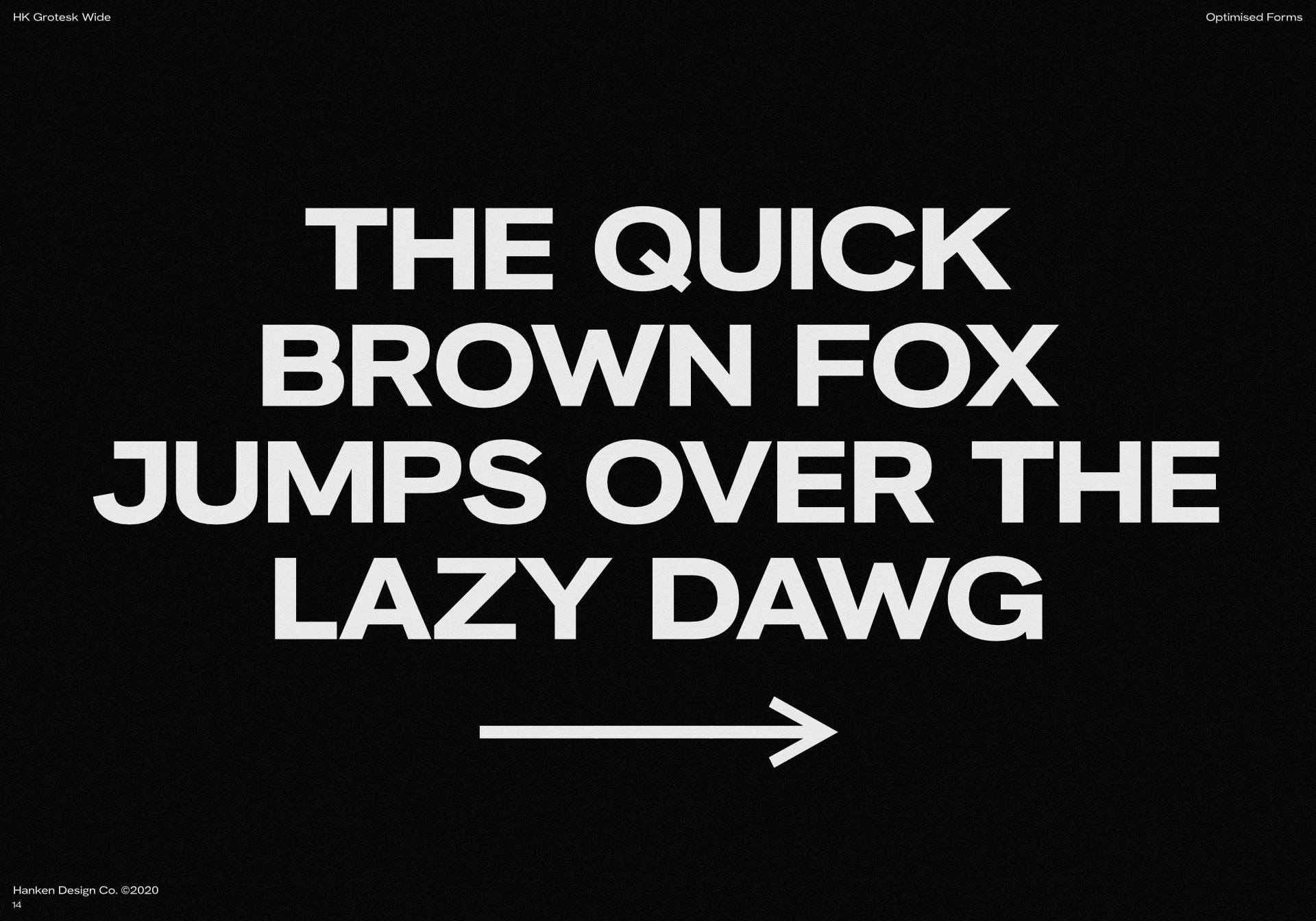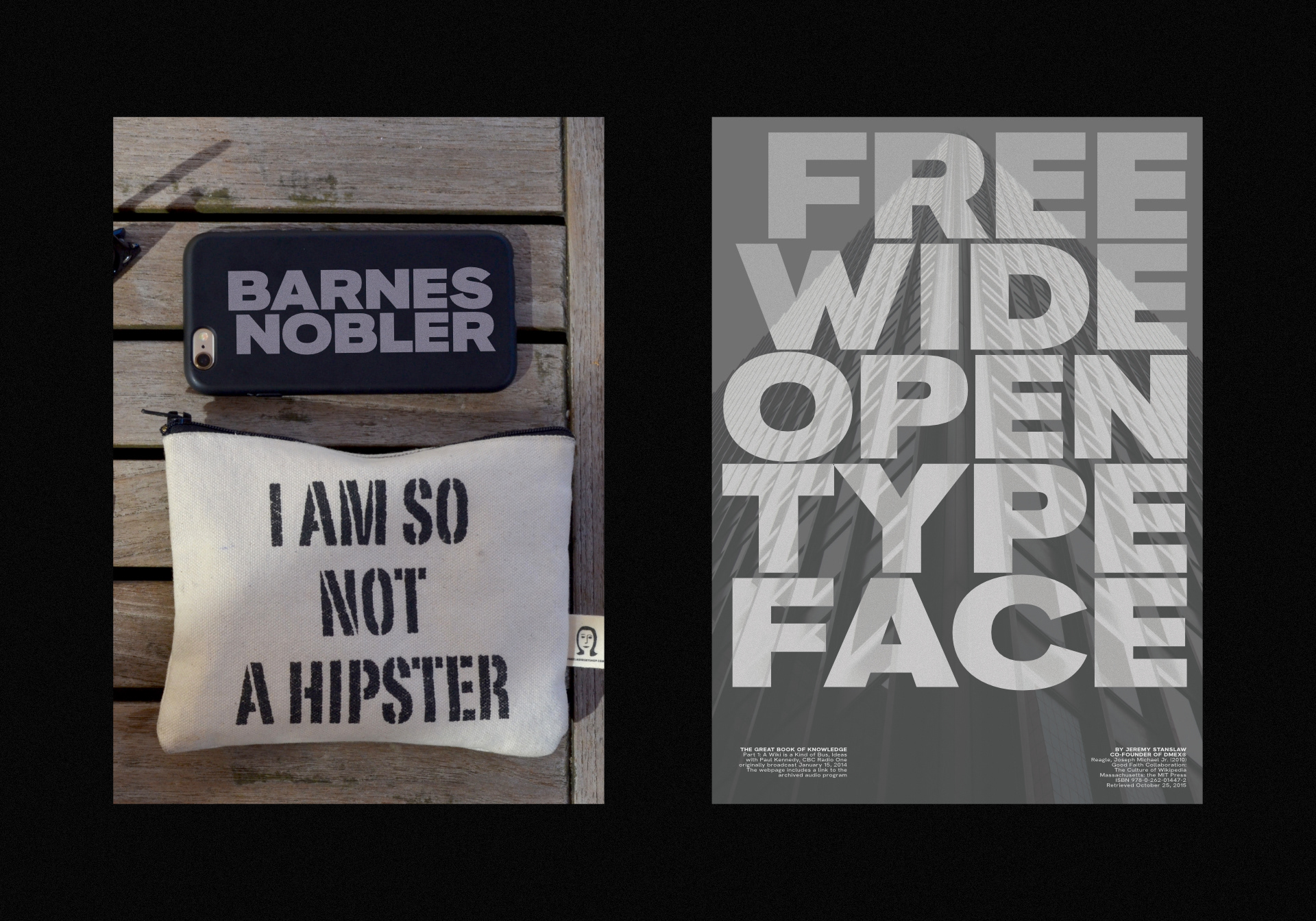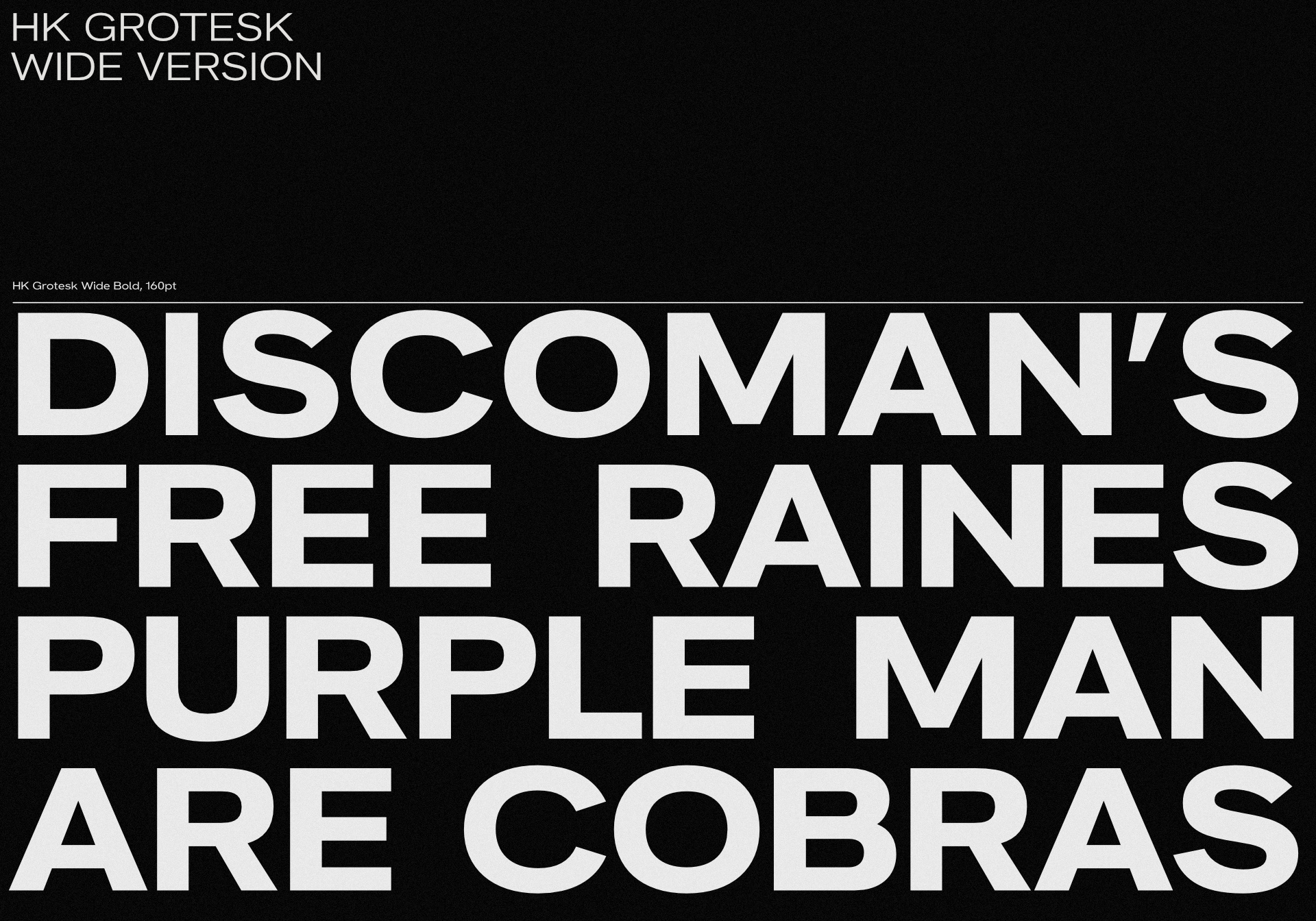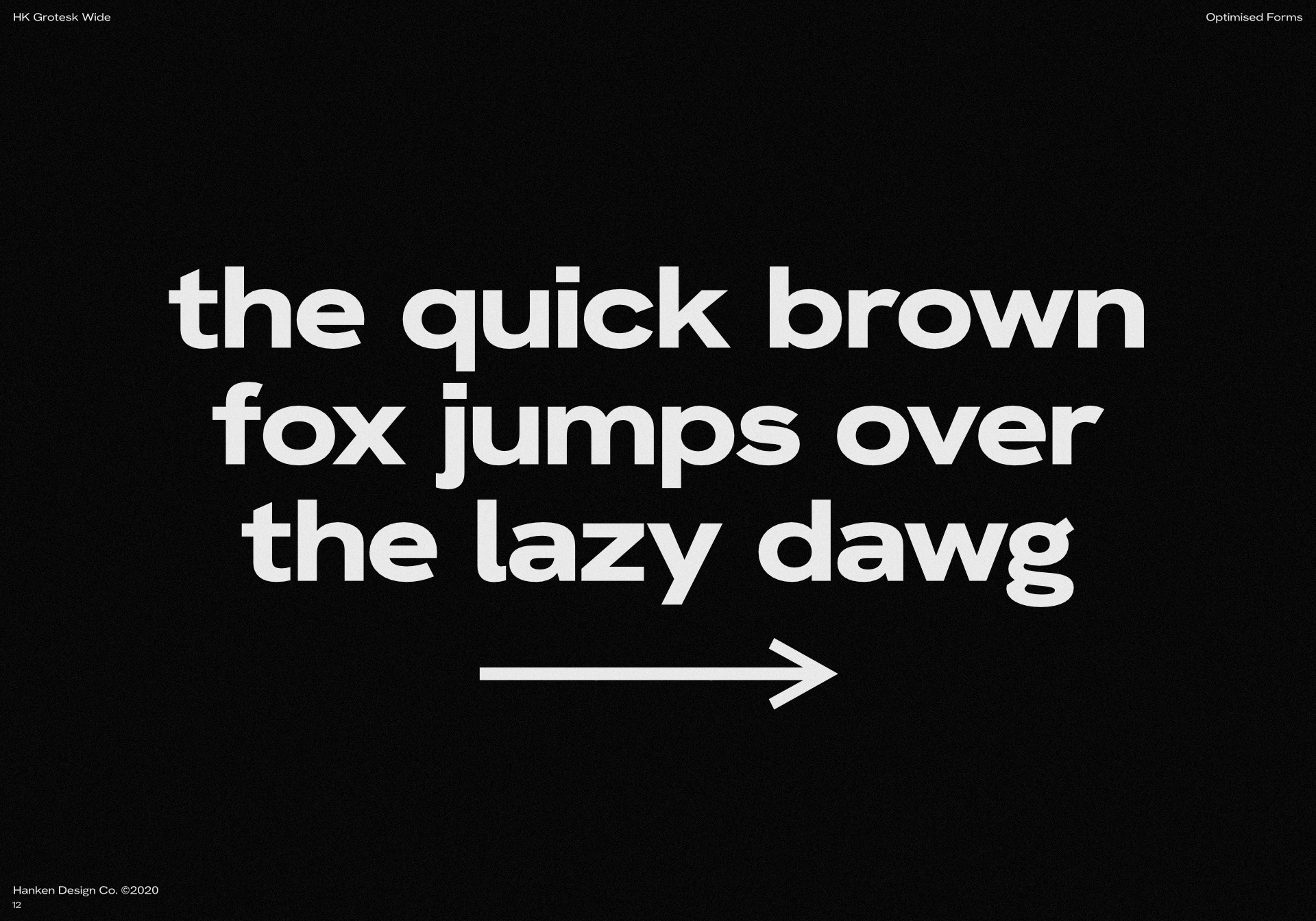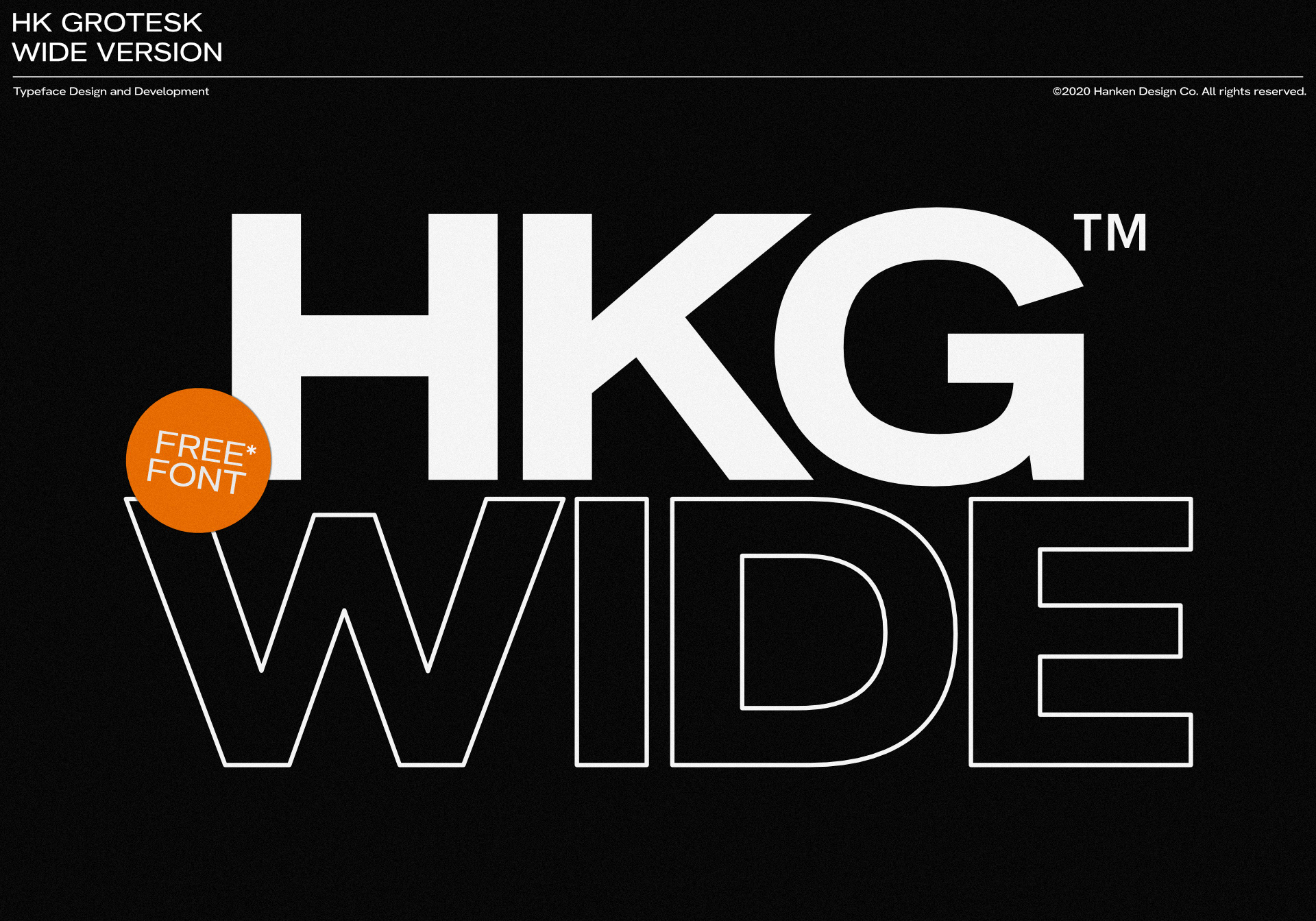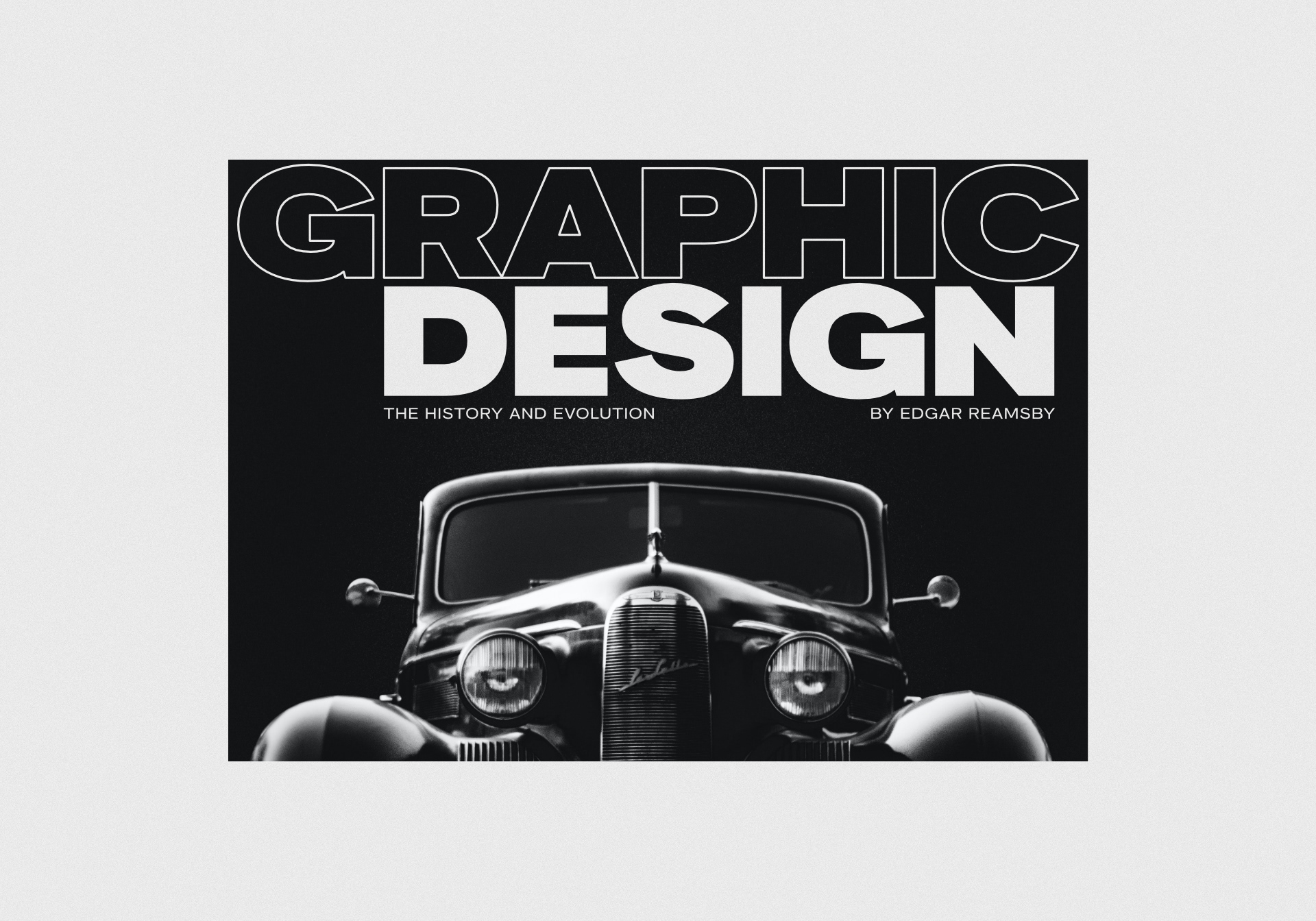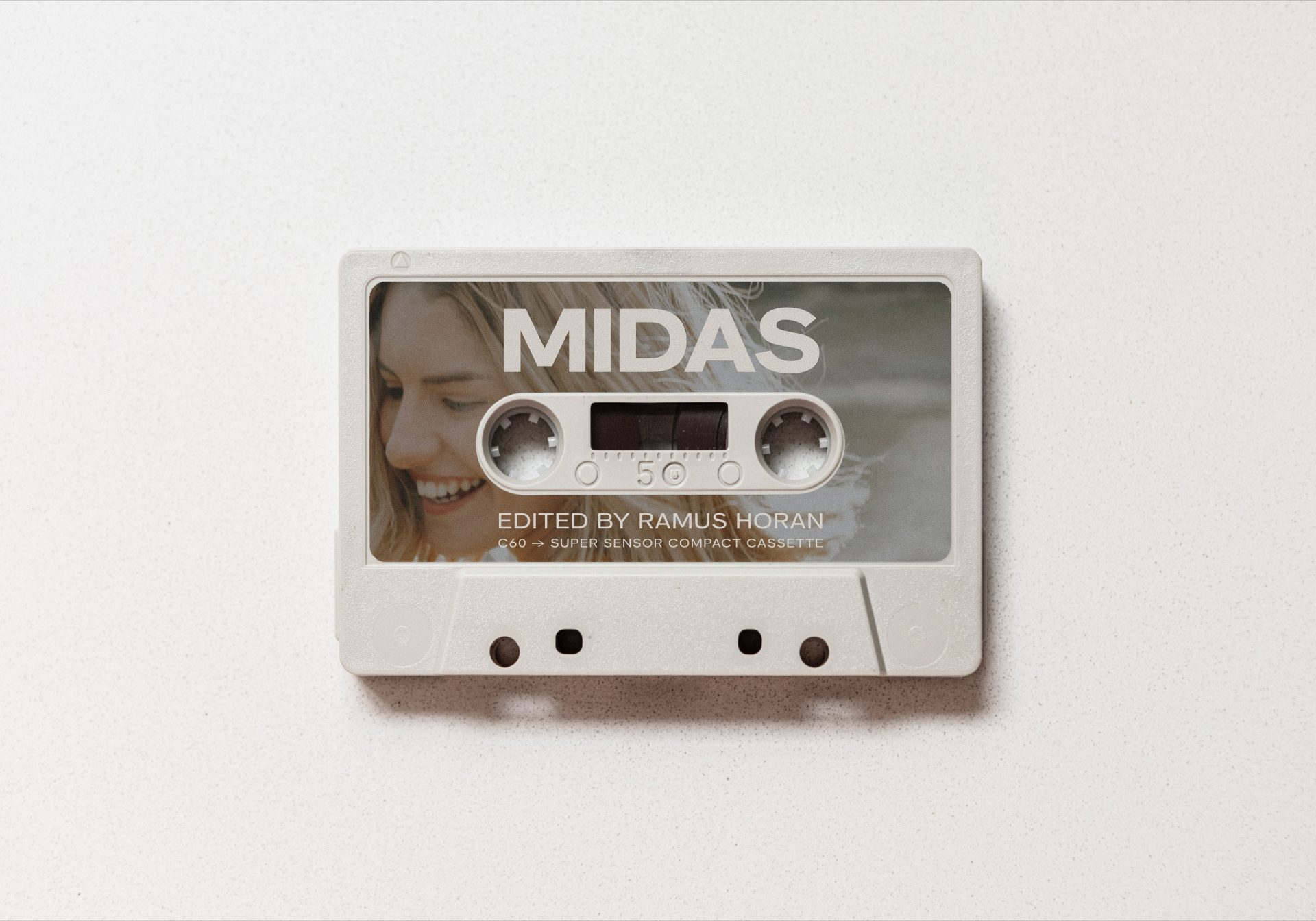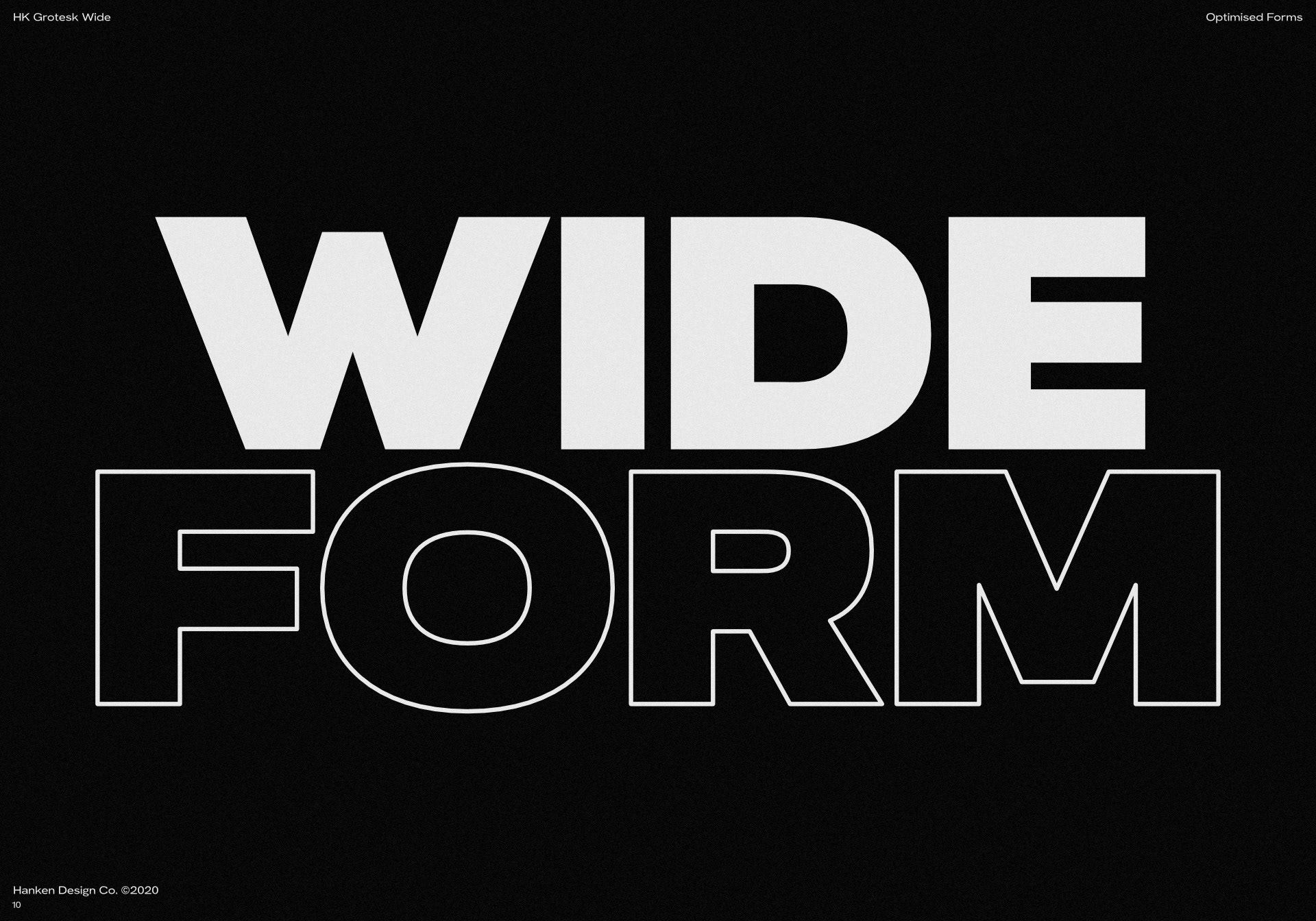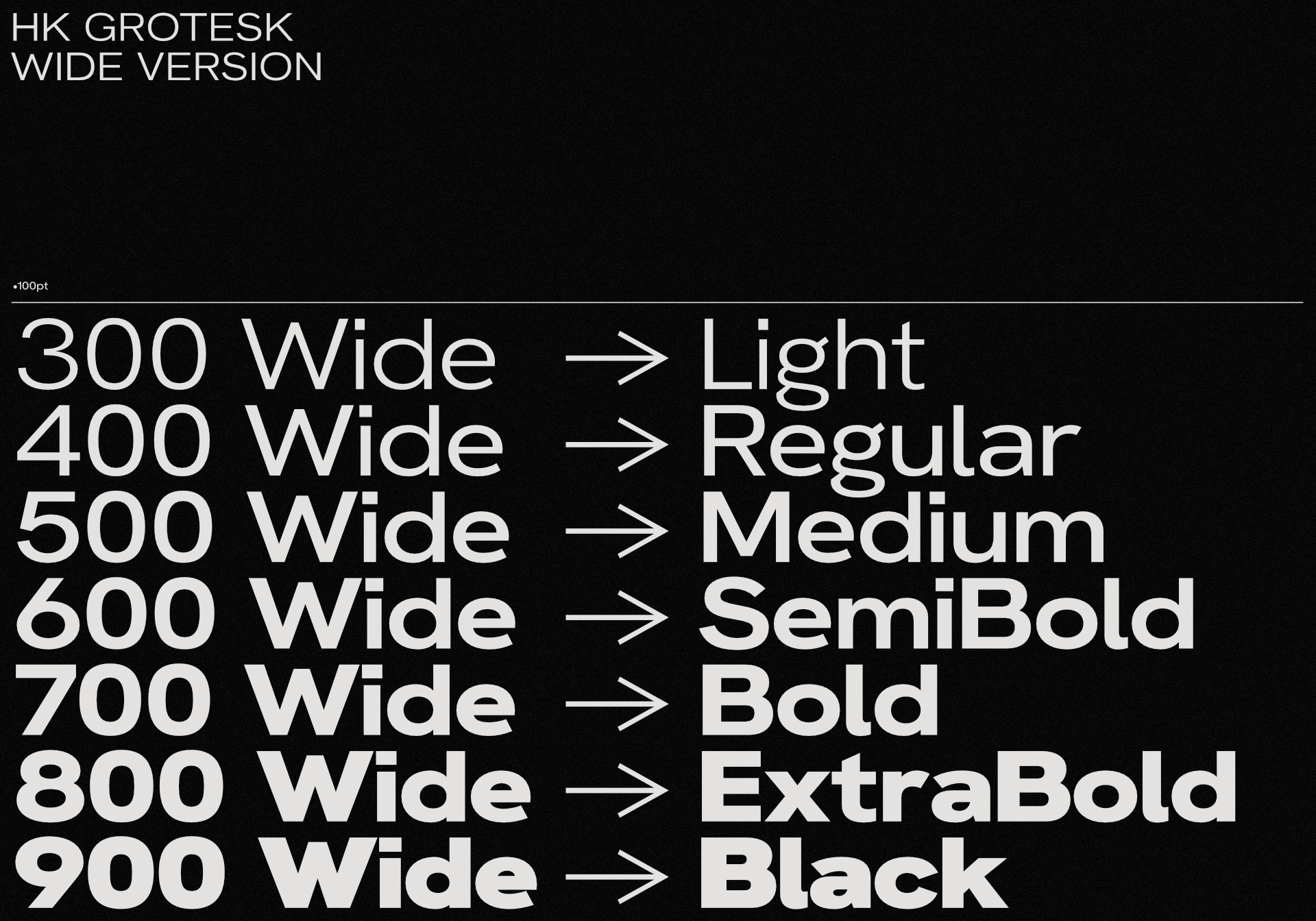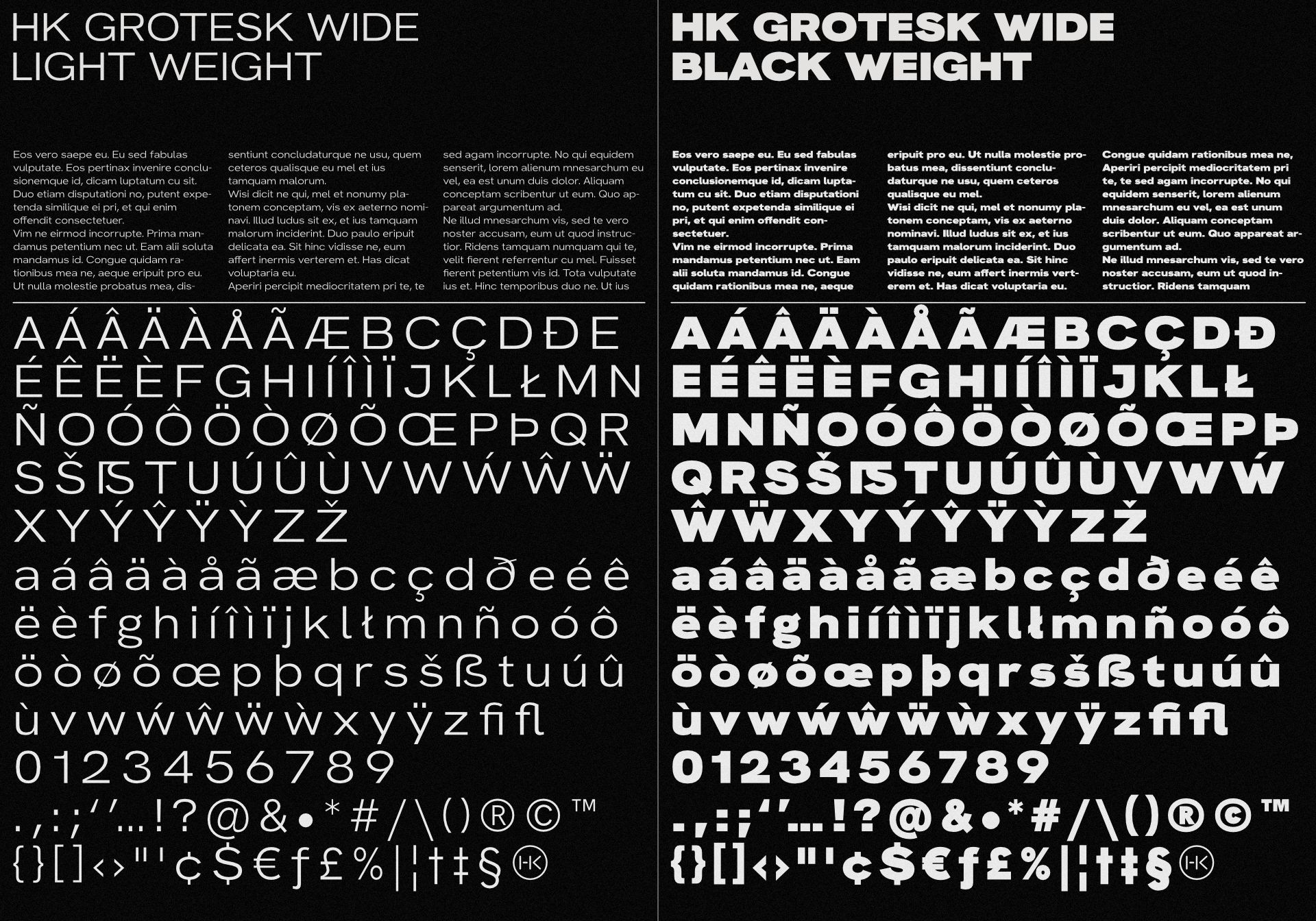
HK Grotesk Wide is a font for posters, headlines, or book/magazine covers.
Design+Development: Alfredo Marco Pradil
Company: Hanken Design Co.
Glyphs: 550+ per style
Styles: 7
Class: Grotesk